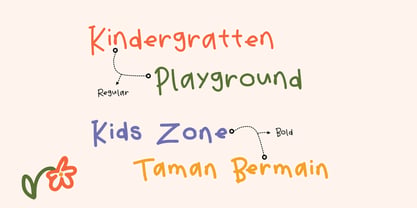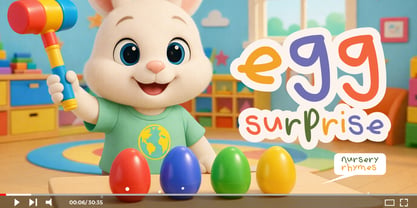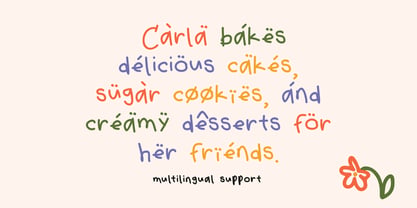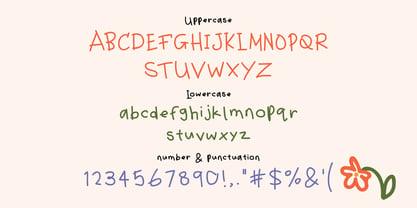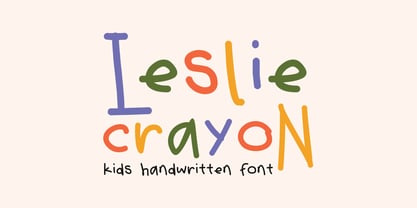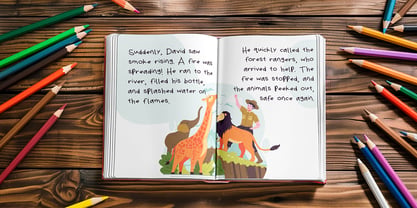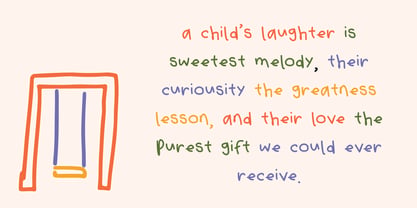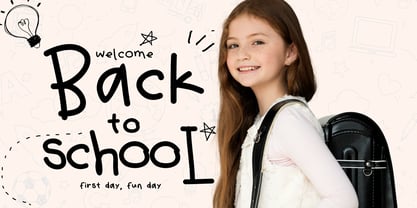
Leslie Crayon
by Sipanji21
The Leslie Crayon Font Family was designed by Sipanji and published by Sipanji21. Leslie Crayon contains 2 styles and family package options. More about this family
Leslie Crayon is a natural handwritten typeface inspired by the authentic strokes of children’s drawings and crayon writing. Designed to capture the spontaneity and charm of real handwriting, this font brings warmth, creativity, and personality into a wide range of design projects. The design of Leslie Crayon focuses on organic imperfections. Each letter is intentionally crafted with slight irregularities, mimicking the natural movement of a hand drawing with crayons. This creates a genuine and expressive look that feels alive and relatable. The font includes two styles: Regular and Bold. The Regular style reflects a soft and natural handwriting appearance, while the Bold style adds emphasis and visual strength. Together, these styles allow designers to create hierarchy and contrast within their compositions. Leslie Crayon includes uppercase and lowercase characters, offering flexibility for different design needs. The natural flow between letters makes it suitable for playful layouts while maintaining readability. Numbers and punctuation are included, ensuring consistency across all text elements. With multilingual support, this font can be used for global projects, making it a versatile choice for designers working across different markets. Leslie Crayon is ideal for children’s designs, educational materials, branding, packaging, greeting cards, and social media content. Its friendly and approachable style makes it effective in capturing attention and creating emotional connection. In branding, the font helps create a warm and inviting identity. It is suitable for businesses that want to appear creative and approachable, such as kids brands, schools, and family-oriented services. From a technical perspective, Leslie Crayon is optimized for both print and digital use. Its vector structure ensures high-quality results across different formats. Leslie Crayon is more than just a font—it is a reflection of creativity and imagination. It allows designers to create designs that feel personal, engaging, and full of life.